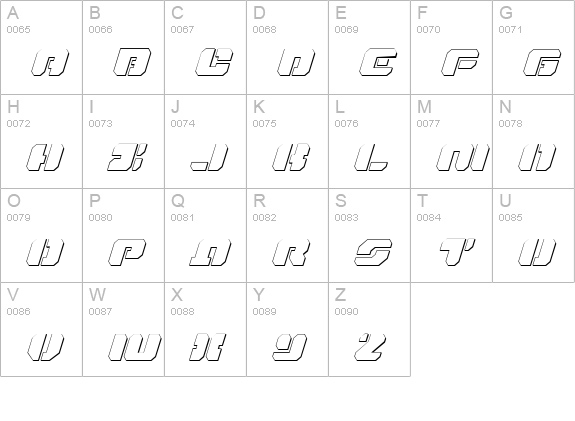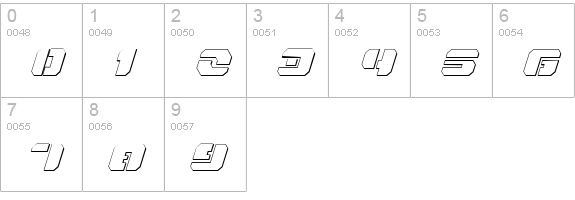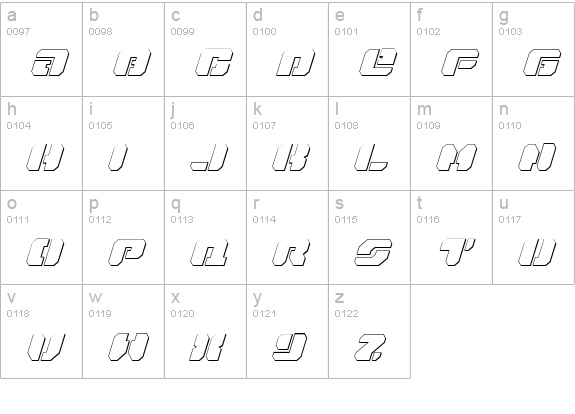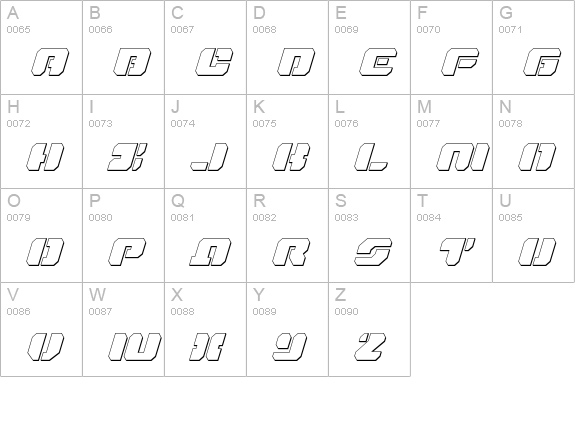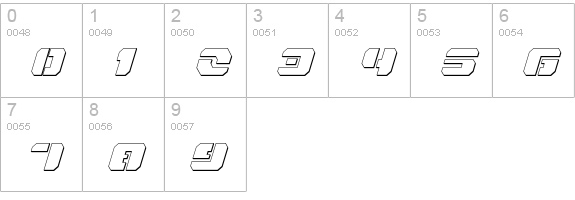
Dan Stargate Outline Italic is a distinctive, italic variant in the Dan typeface family \xE2\x80\x94 well suited to design and typography projects.
The Dan Stargate Outline Italic font is a sleek and futuristic typeface that brings a touch of modernity to any design project. Its sharp lines and edgy appearance make it perfect for conveying a sense of innovation and cutting-edge style. The italicized version adds a dynamic flair to the text, making it stand out and command attention. This font is not only visually appealing but also highly versatile, suitable for a wide range of design purposes including headings, logos, posters, and more. Whether you're working on a sci-fi inspired project or just looking to add a contemporary twist to your work, the Dan Stargate Outline Italic font is sure to make a statement. Best of all, this font is available for free download at FontsMarket.com, making it easily accessible to anyone looking to enhance their designs with a touch of modern elegance. Don't miss out on the opportunity to elevate your projects with this stylish and eye-catching typeface.